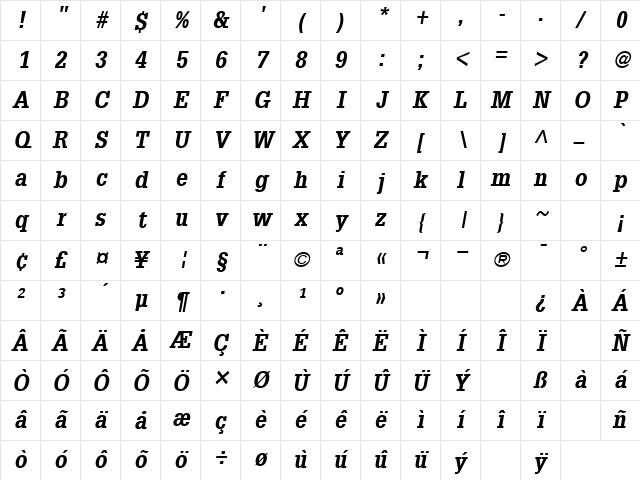
Complete EgotistCond Bold-Oblique glyph index. Displaying only characters natively supported by EgotistCond Bold-Oblique font.
EgotistCond is a composed and adaptable typeface that performs quietly and consistently across a wide range of design contexts. The slanted form adds forward momentum and visual energy. Its bold stroke weight gives it real presence on the page. Its narrow stance lets it pack a punch even in space-constrained designs.